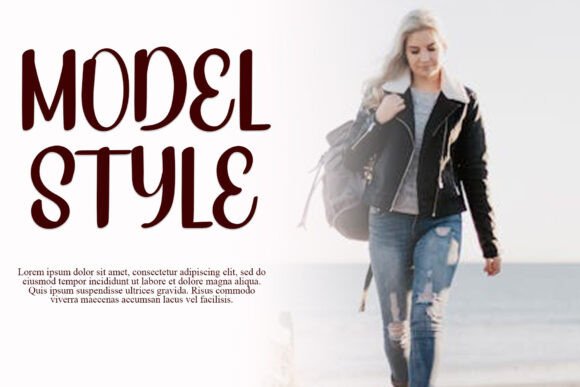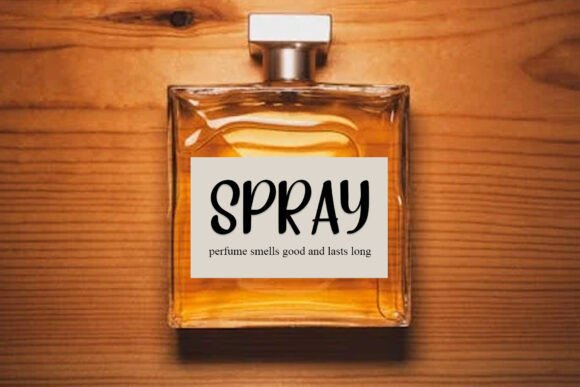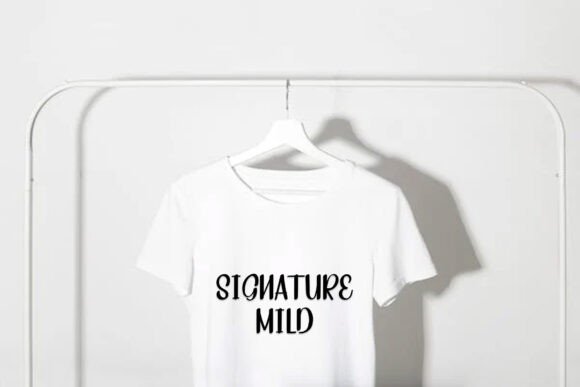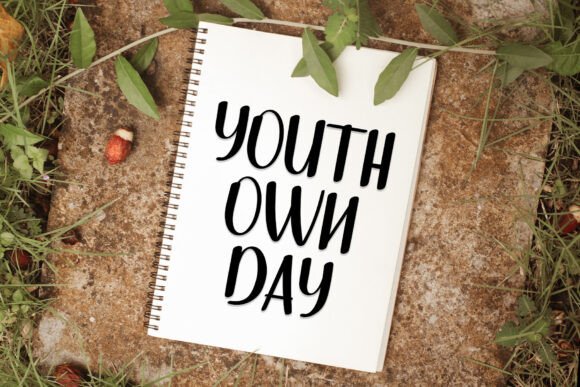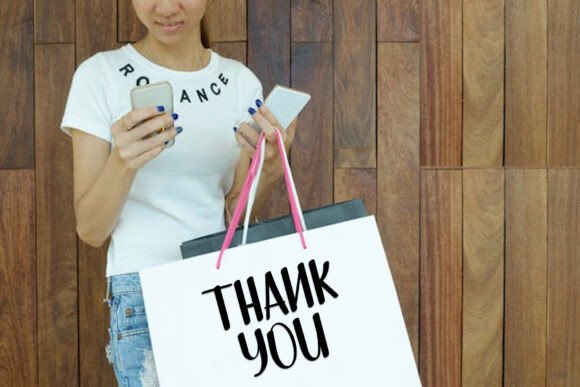
Introducing Autumn Samantha Font: The Perfect Blend of Style and Playfulness
Are you a designer or crafter looking for a font that can add a touch of modern style and playfulness to your projects? Look no further than the Autumn Samantha Font. This stylish display font is designed to combine clean lines with a playful touch, making it perfect for headlines, posters, and creative projects.
What Makes Autumn Samantha Font Stand Out?
Autumn Samantha Font is a unique and versatile font that offers a fresh and contemporary feel. Its clean lines and playful touch make it easy to read, even at larger sizes, making it ideal for use in a variety of applications. Whether you’re designing a poster, creating a social media graphic, or crafting a logo, this font is sure to make your text stand out.
Key Features of Autumn Samantha Font
- Clean Lines: The font features clean and crisp lines that give it a modern and sophisticated look.
- Playful Touch: The playful touch in the font adds a fun and whimsical feel, making it perfect for creative projects.
- Ease of Readability: The font is easy to read, even at larger sizes, making it ideal for use in headlines and posters.
- Versatility: The font is versatile and can be used in a variety of applications, from kids’ projects to adult-oriented designs.
Why Choose Autumn Samantha Font?
There are many reasons why Autumn Samantha Font is a great choice for designers and crafters. Here are just a few:
- Fresh and Contemporary Feel: The font has a fresh and contemporary feel that will make your designs look modern and stylish.
- Perfect for Kids and Adults: The font is suitable for use in projects for both kids and adults, making it a versatile addition to your font library.
- Adds a Fun, Modern Vibe: The font adds a fun and modern vibe to your text, making it perfect for creative projects.
Using Autumn Samantha Font in Your Projects
Autumn Samantha Font is easy to use in a variety of projects. Here are a few ideas to get you started:
- Posters: Use the font to create eye-catching posters for events, promotions, or announcements.
- Social Media Graphics: Use the font to create engaging social media graphics that will grab the attention of your followers.
- Logos: Use the font to create a modern and stylish logo for your business or brand.
- Crafting Projects: Use the font to add a personal touch to your crafting projects, such as handmade cards, scrapbook pages, and more.
Tips for Getting the Most Out of Autumn Samantha Font
Here are a few tips for getting the most out of Autumn Samantha Font:
- Experiment with Sizes: Experiment with different sizes to find the perfect fit for your project.
- Pair with Other Fonts: Pair the font with other fonts to create a unique and interesting look.
- Use in Combination with Images: Use the font in combination with images to create a visually appealing design.